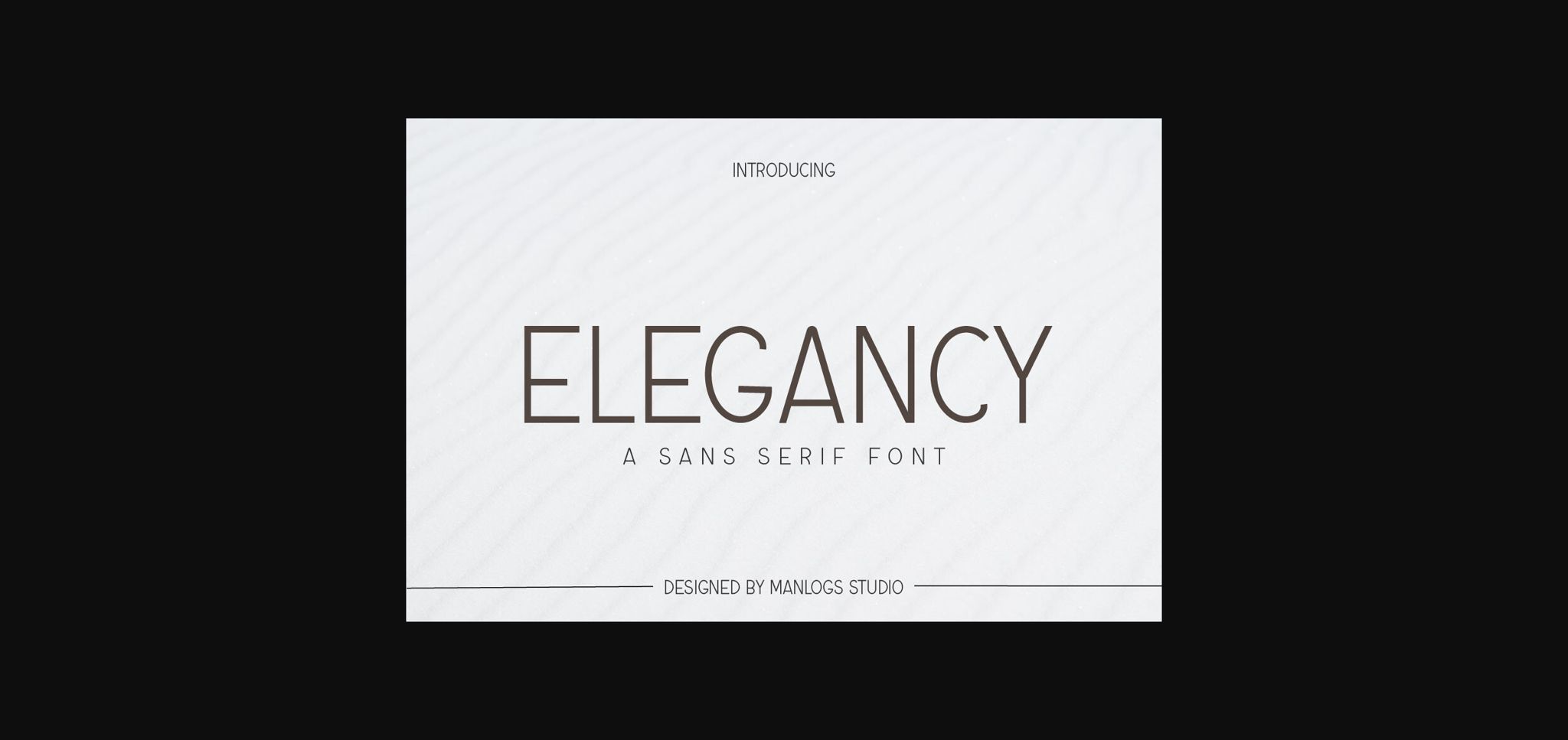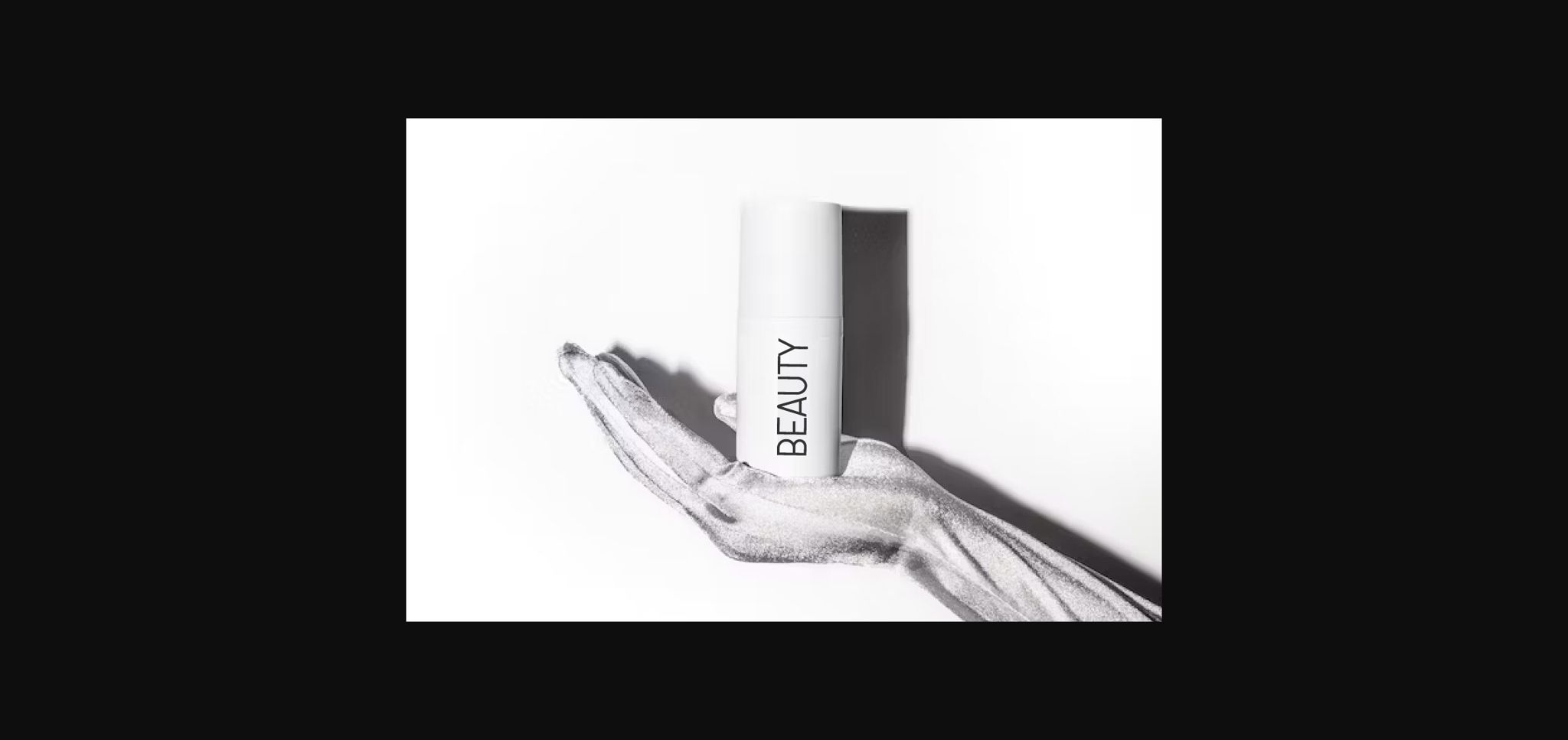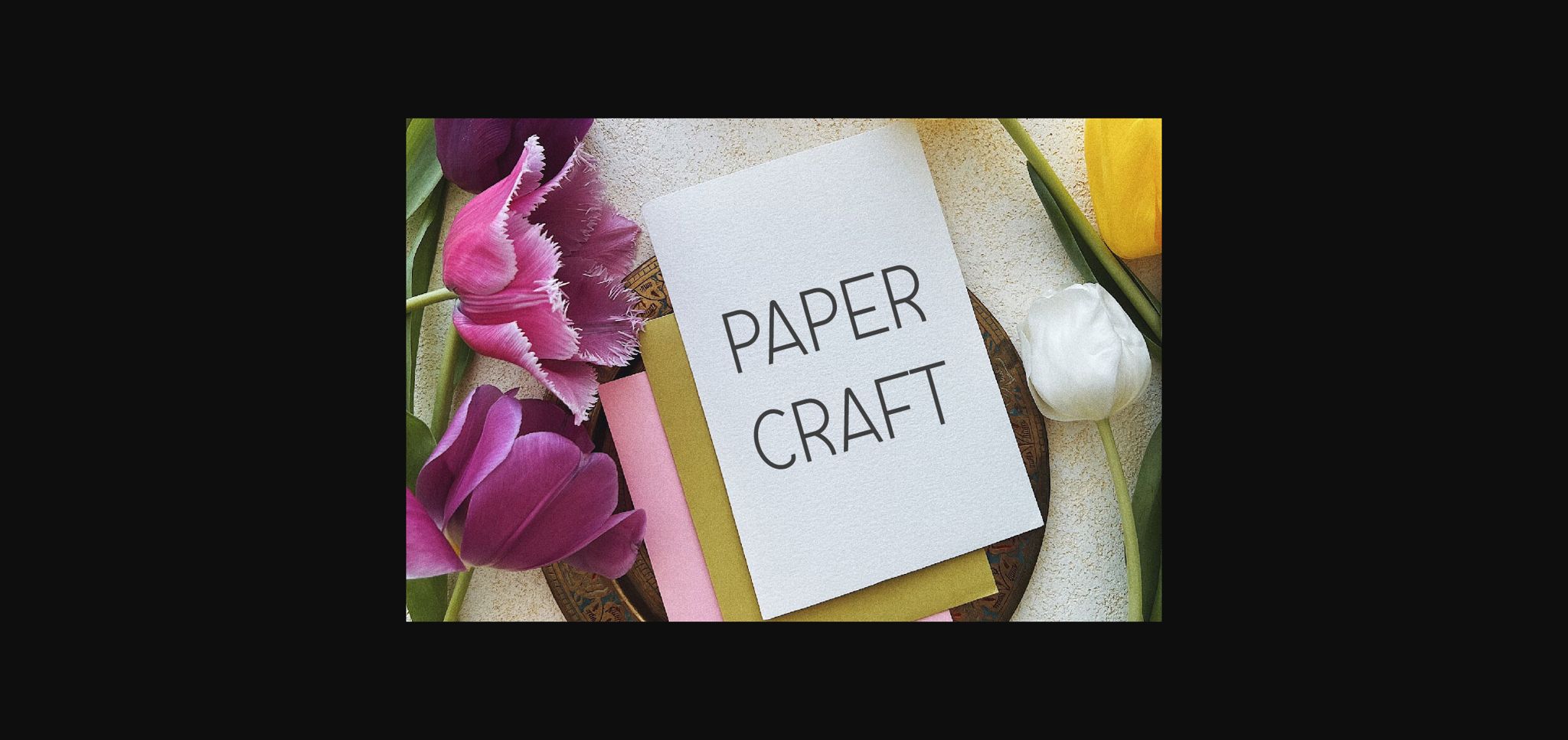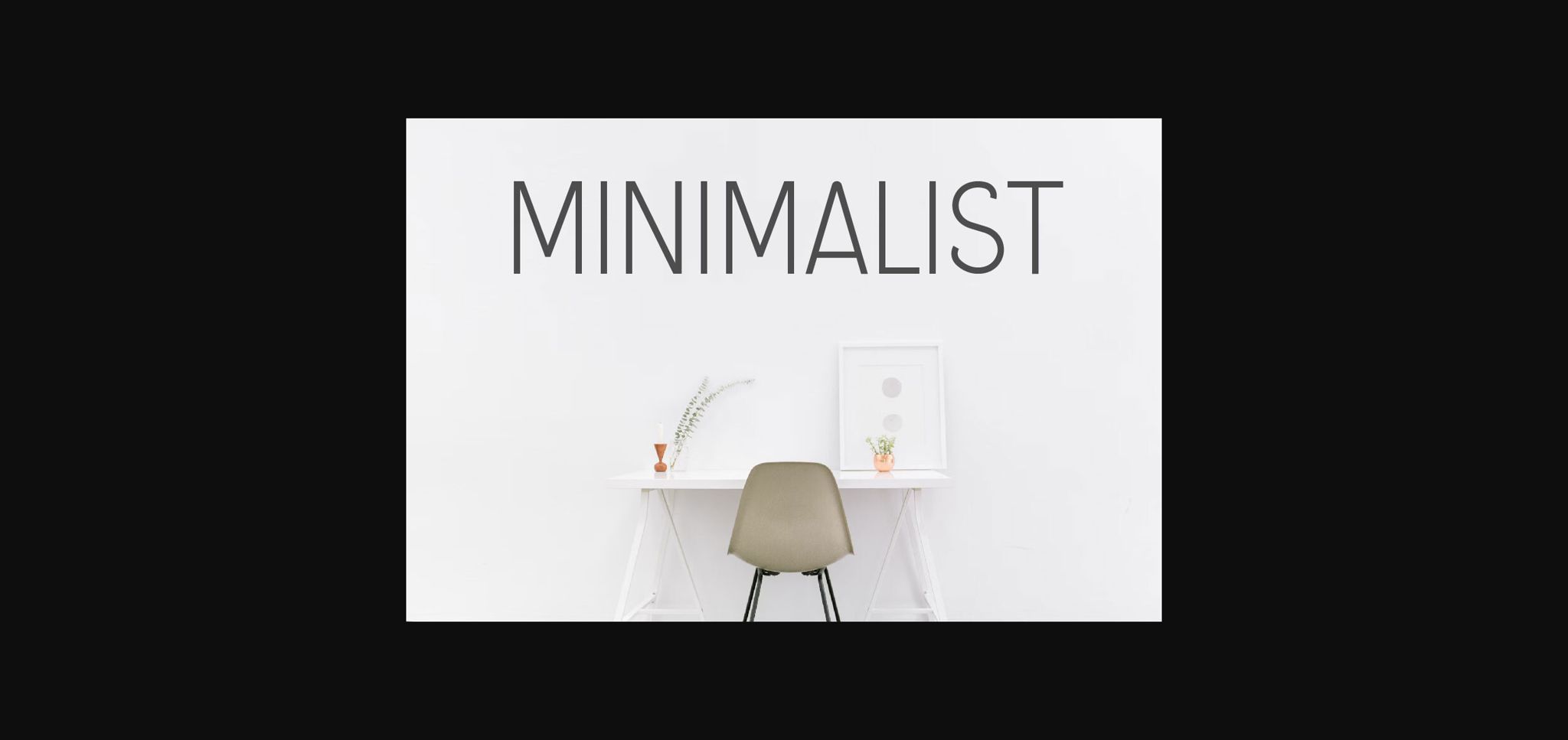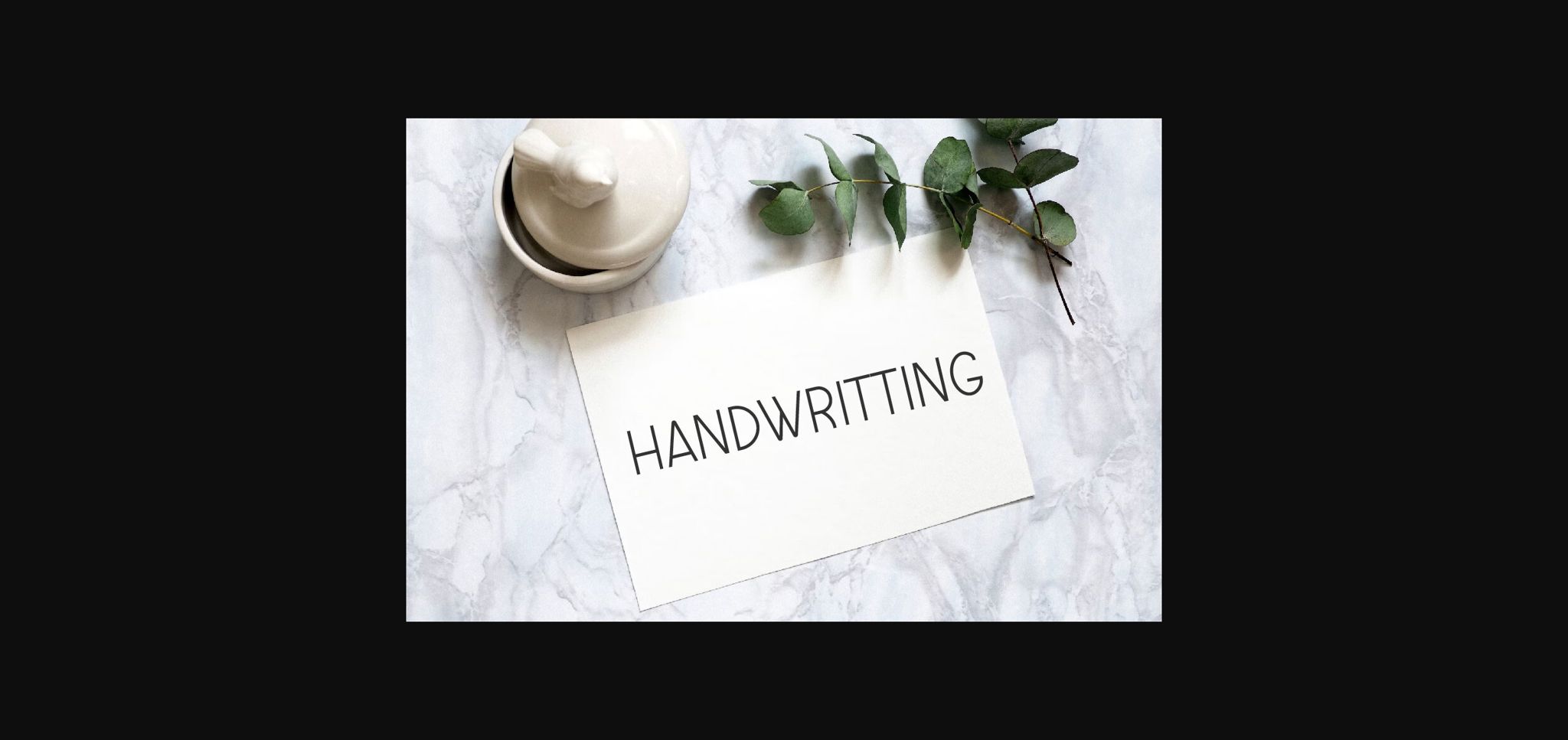
About Elegancy Font
Elegancy is an all-caps sans serif font that will impress you with its versatility. This font works beautifully for headings, gorgeous invitations, stunning logos, and so much more!! Perfect for displays, invitations, wedding crafted, blogs, branding and so much more! It contains an uppercase alphabet with numbers and symbols.